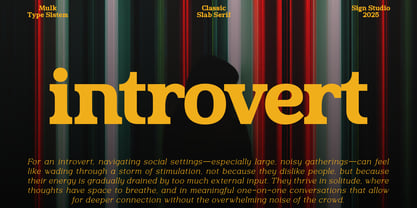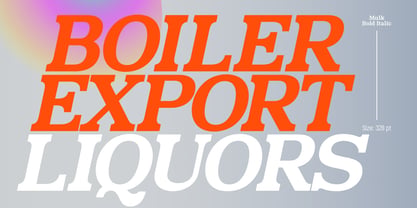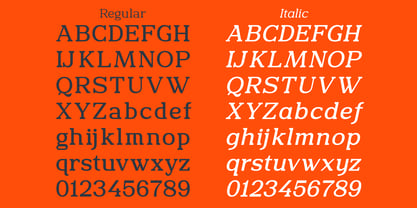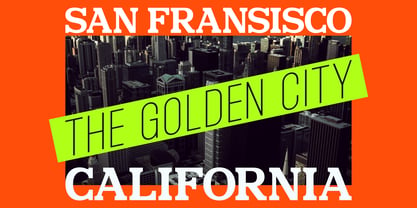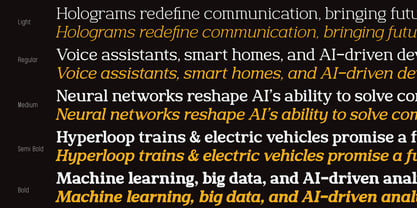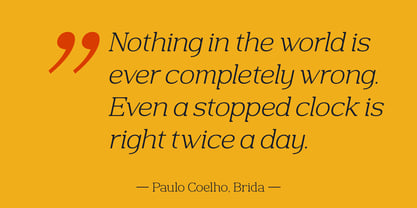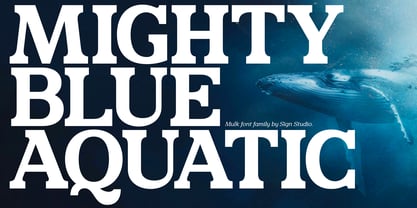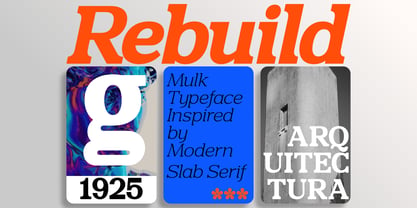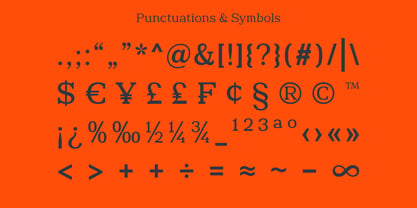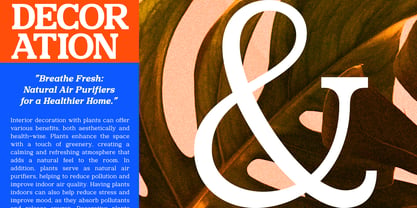
Mulk
von Sign Studio
Die Schriftfamilie Mulk wurde von Sugi Yanto entworfen und von Sign Studio veröffentlicht. Mulk enthält 10 Stile und Familienpaketoptionen. Mehr über diese Familie
Mulk is a contemporary interpretation of a slab serif typeface that features a modern twist, characterized by wider proportions, robust slab serifs, and slightly higher-stress curves. It preserves the strength and familiarity of its historic predecessor while introducing a cleaner, more versatile structure for contemporary applications. Unlike many experimental slab serifs, Mulk maintains a solid and straightforward character. This typeface family includes five weights along with corresponding italics, providing designers with the flexibility needed for impactful headlines and confident, readable text. Mulk strikes a balance between heritage and utility, making it a reliable and standout slab serif typeface that avoids excessive ornamentation. It is equally suited for branding, editorial work, and visual displays.